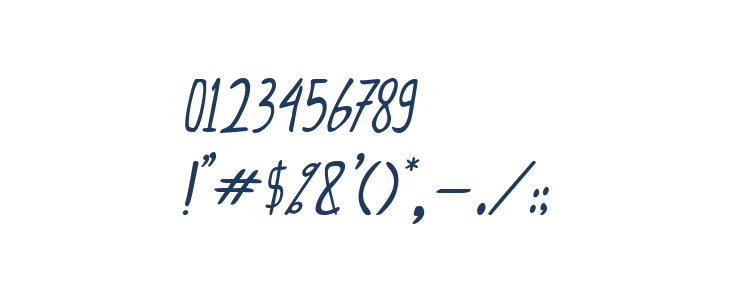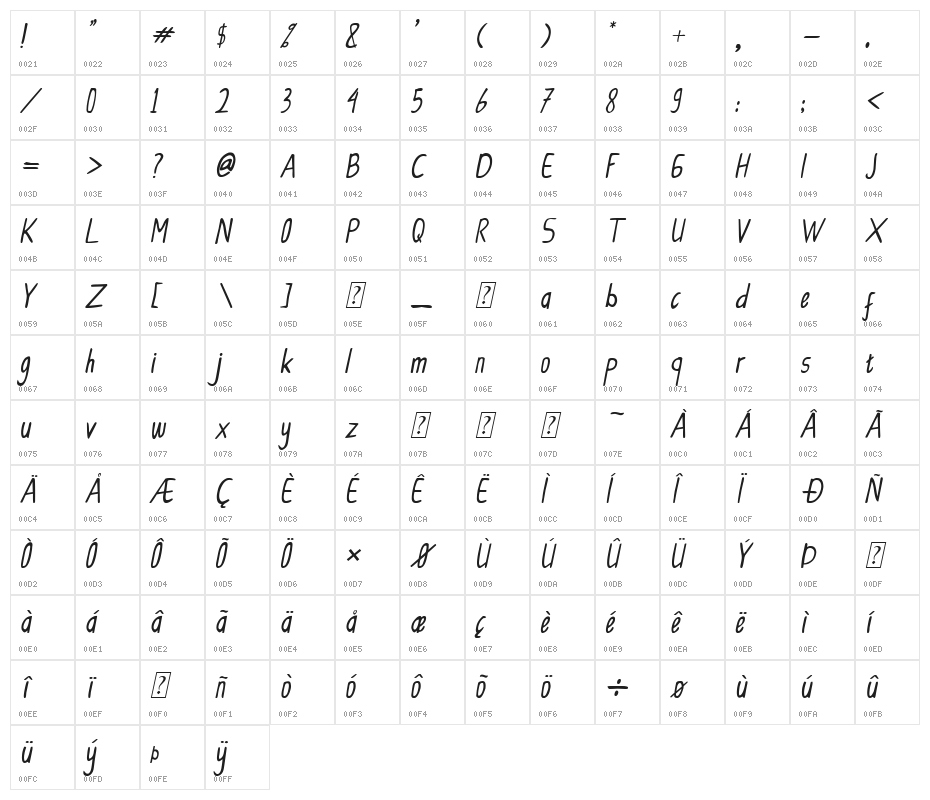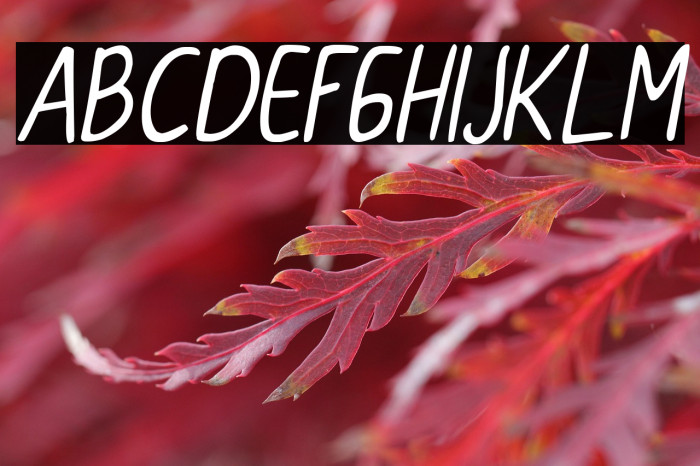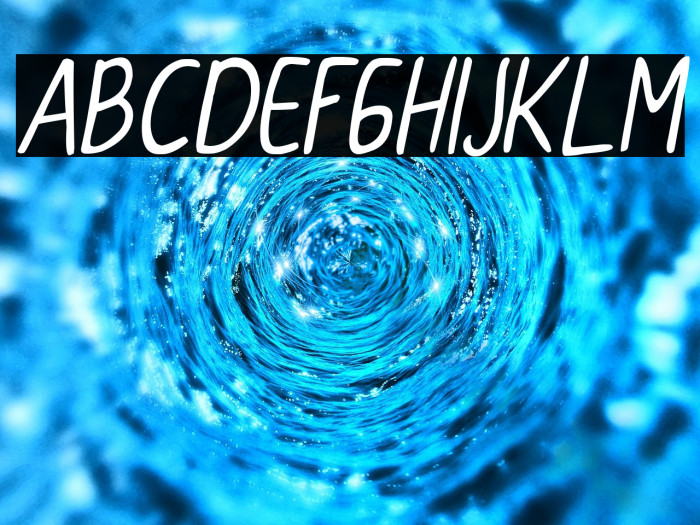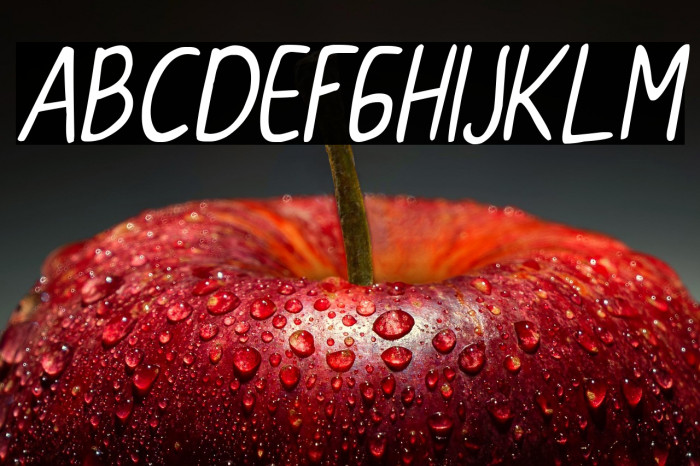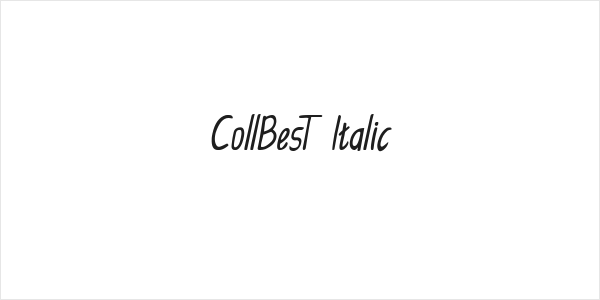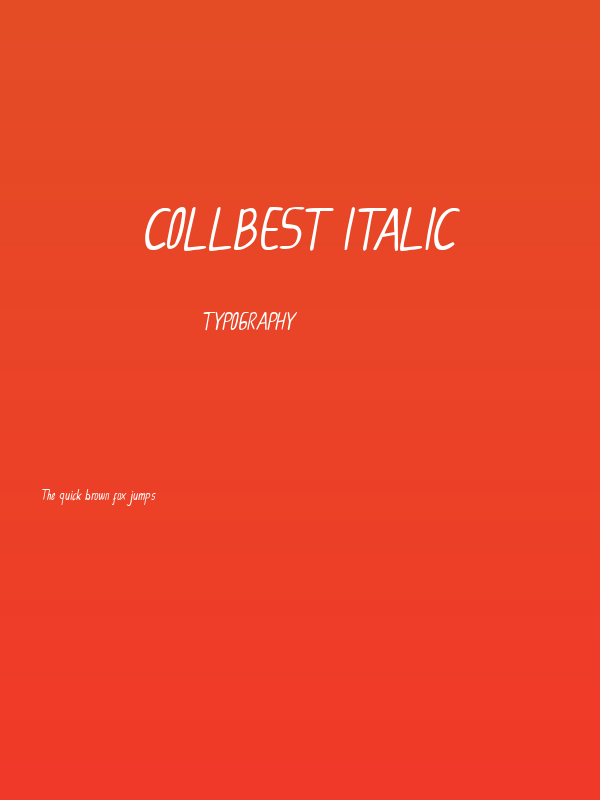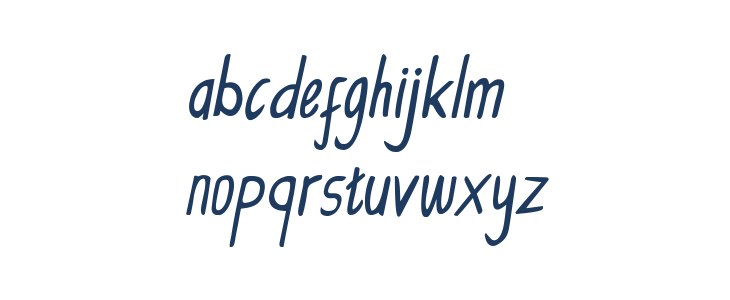
CollBesT Italic Font
CollBesT Italic Description
This font features a dynamic and fluid style, characterized by its italicized and slightly slanted letterforms. The strokes are smooth and consistent, giving it a handwritten appearance that is both casual and elegant. The uppercase letters are tall and narrow, while the lowercase letters maintain a consistent flow, enhancing readability. The numerals are distinct and align well with the overall style, making them suitable for various applications. Special characters are crafted with the same attention to detail, ensuring a cohesive look across all glyphs.